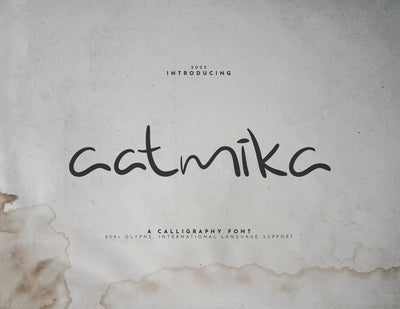
Aatmika Calligraphy Font
Aatmika is one of Calligraphy Font which has flexible and beautiful line curves. "Aatmika" designed on 2022, ready to make your design look more aesthetic with the line curve. your design looks will be more perfect if you use this font because "Aatmika" font is suitable for your invitation card, poster, social media post, lettering, book heading also any design.